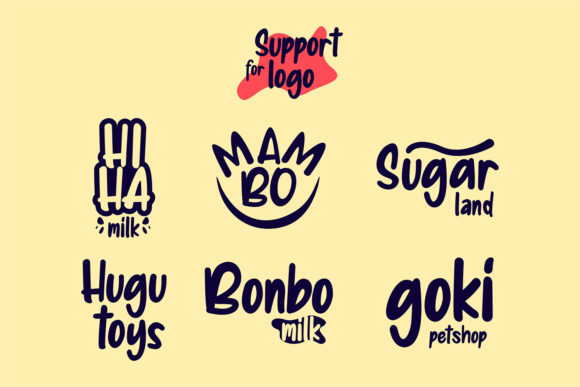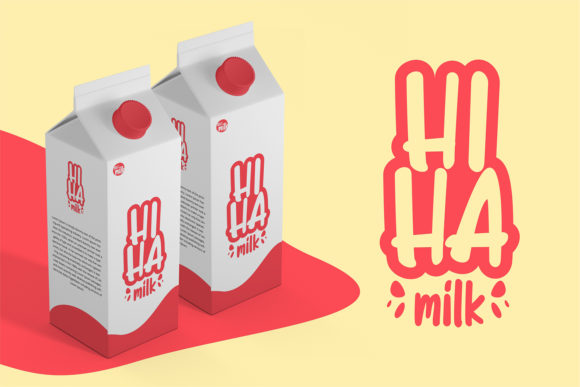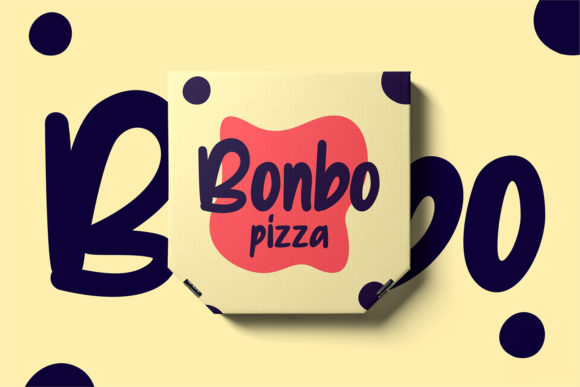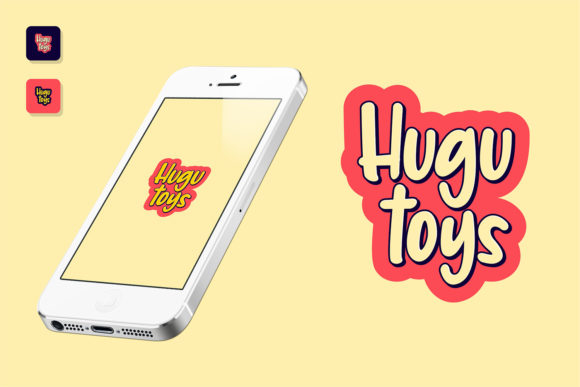
Introducing Afika Font: The Cute and Quirky Display Font to Elevate Your Designs
Are you tired of using the same old fonts in your designs? Do you want to add a touch of joy and whimsy to your creative projects? Look no further than Afika Font, a delightful and quirky display font that’s sure to make your designs stand out. In this article, we’ll dive into the world of Afika Font, exploring its features, benefits, and uses, and show you how to make the most of this beautiful display font.
What is Afika Font?
Afika Font is a unique and charming display font designed to add a playful and joyful touch to your designs. With its cute and quirky style, Afika Font is perfect for designers, crafters, and anyone looking to create eye-catching and engaging visual content. Whether you’re working on a branding project, a social media graphic, or a craft project, Afika Font is sure to bring a smile to your face and make your designs shine.
Features of Afika Font
So, what makes Afika Font so special? Here are just a few of its key features:
- Cute and Quirky Style: Afika Font boasts a unique and playful style that’s sure to capture attention and add a touch of joy to your designs.
- Display Font: Afika Font is a display font, making it perfect for headlines, titles, and other prominent text elements in your designs.
- Easy to Read: Despite its playful style, Afika Font is easy to read, making it perfect for use in a variety of design applications.
- Versatile: Afika Font can be used in a wide range of design projects, from branding and advertising to crafting and DIY projects.
Benefits of Using Afika Font
So, why should you choose Afika Font for your designs? Here are just a few benefits of using this beautiful display font:
- Adds a Touch of Joy: Afika Font is sure to bring a smile to your face and add a touch of joy to your designs.
- Stand Out from the Crowd: With its unique and quirky style, Afika Font is sure to make your designs stand out from the crowd.
- Versatile: Afika Font can be used in a wide range of design applications, making it a great addition to your font library.
Using Afika Font in Your Designs
So, how can you use Afika Font in your designs? Here are a few ideas to get you started:
- Branding and Advertising: Use Afika Font to create eye-catching headlines and titles for your branding and advertising projects.
- Social Media Graphics: Add a touch of joy to your social media graphics with Afika Font.
- Crafting and DIY Projects: Use Afika Font to add a personal touch to your crafting and DIY projects, such as signs, labels, and cards.
- Web Design: Use Afika Font to create eye-catching headlines and titles for your website.
Tips and Tricks for Using Afika Font
Here are a few tips and tricks for getting the most out of Afika Font:
- Use it Sparingly: Afika Font is a display font, so use it sparingly to add emphasis and impact to your designs.
- Experiment with Colors: Afika Font looks great in a variety of colors, so don’t be afraid to experiment and find the perfect color for your design.
- Pair it with Other Fonts: Afika Font pairs well with a variety of other fonts, so try pairing it with a serif or sans-serif font to create visual interest.
In conclusion, Afika Font is a beautiful and quirky display font that’s sure to add a touch of joy and whimsy to your designs. With its cute and quirky style, Afika Font is perfect for designers, crafters, and anyone looking to create eye-catching and engaging visual content. Whether you’re working on a branding project, a social media graphic, or a craft project, Afika Font is sure to make your designs stand out. So why wait? Download Afika Font today and start adding a touch of joy to your designs!